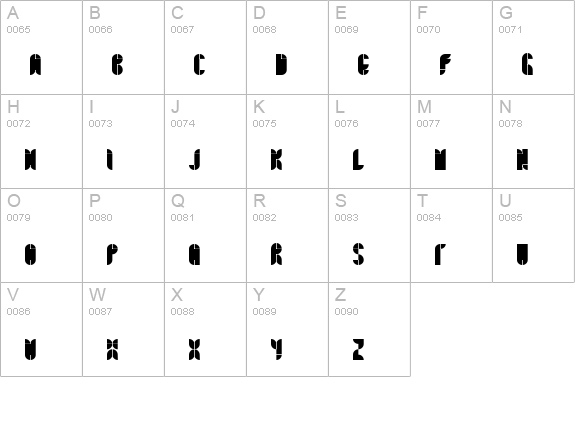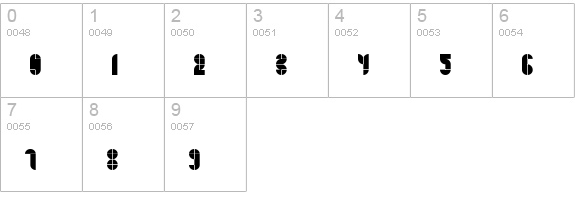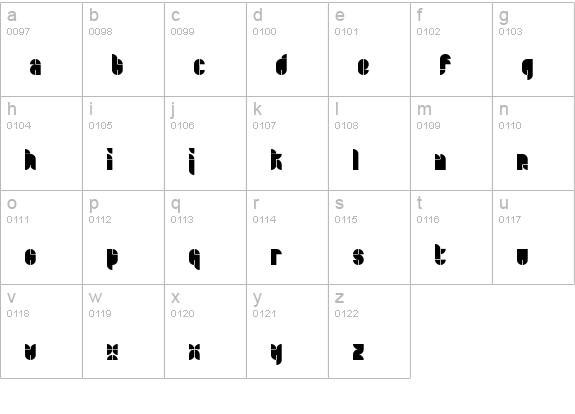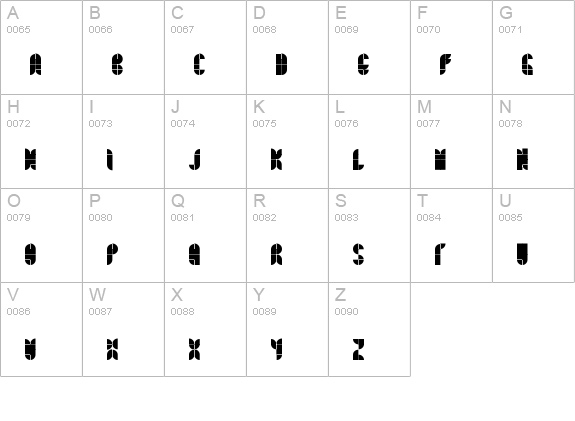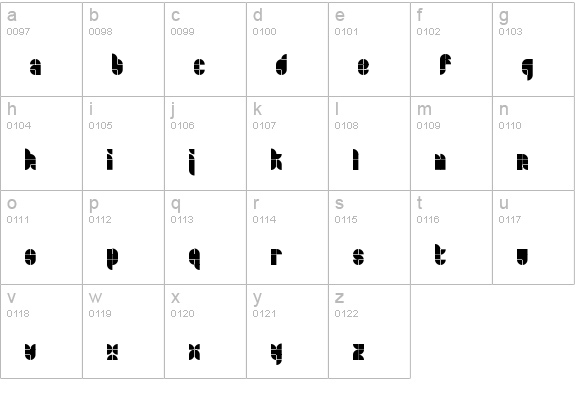
Bath Black is a maximum-weight, dramatic variant in the Bath typeface family \xE2\x80\x94 well suited to maximum-impact headlines, posters, and packaging.
Bath Black font exudes sophistication and elegance with its sleek and modern design. The bold and striking characters make a powerful statement, perfect for headlines, branding, and editorial design projects. The clean lines and sharp edges of this font give it a contemporary and stylish feel, making it a versatile choice for various creative endeavors. The best part? Bath Black font is available for free download at FontsMarket.com. Yes, you read that right - this premium font can be yours at no cost! Don't miss out on the opportunity to add this stunning typeface to your collection and elevate your designs with its captivating presence. Download Bath Black font today and let your creativity shine!